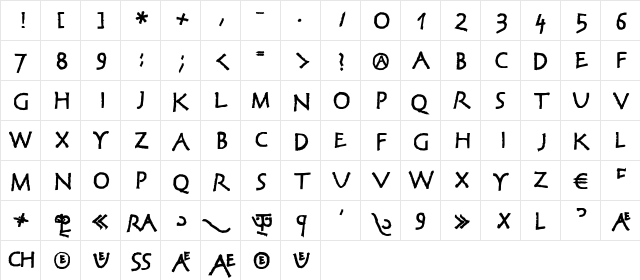
CorrodetClassicaps-Black Regular Font Preview
CorrodetClassicaps-Black Regular
Design Context for CorrodetClassicaps-Black Typeface
CorrodetClassicaps-Black has the warm character of retro typography — evoking diners, record sleeves, and the golden age of print advertising.
Font Pairing: Combine CorrodetClassicaps-Black with a simple slab or neutral sans — period-accurate companions reinforce the vintage feel without competing for attention.
Pro Tip: Lean into CorrodetClassicaps-Black's period character by pairing it with aged paper textures, muted colour palettes, and vintage illustration styles.